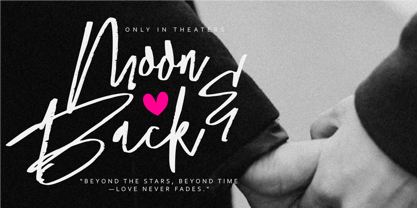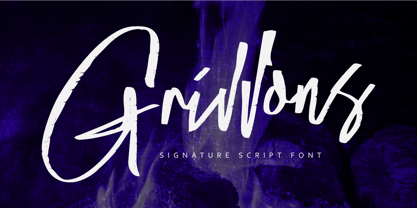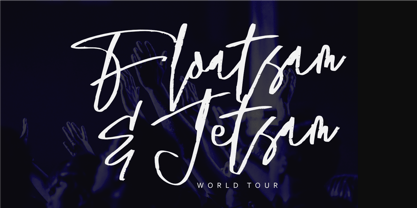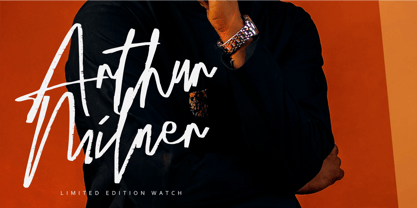
Grivvons
by Olivetype
The Grivvons Font Family was designed by Nurul Hidayani and published by Olivetype. Grivvons contains 1 styles. More about this family
Grivvons is a bold and masculine signature script font with a raw, textured look that exudes confidence and authenticity. Its rugged yet stylish strokes create a striking visual appeal, making it perfect for impactful designs. Whether used for headlines, logotypes, product branding, movie titles, posters, or advertisements, Grivvons delivers a powerful statement with its hand-crafted feel.
The combination of edgy and elegant elements ensures versatility while maintaining a strong and distinctive character. With its unique texture and dynamic flow, this font adds a bold personality to any design, making it an excellent choice for creatives looking to leave a lasting impression.
Grivvons Font features :
• Uppercase & Lowercase
• Numbers, symbols, and punctuations
• Ligatures
• Multilingual Support.
Designers: Nurul Hidayani
Foundry: Olivetype